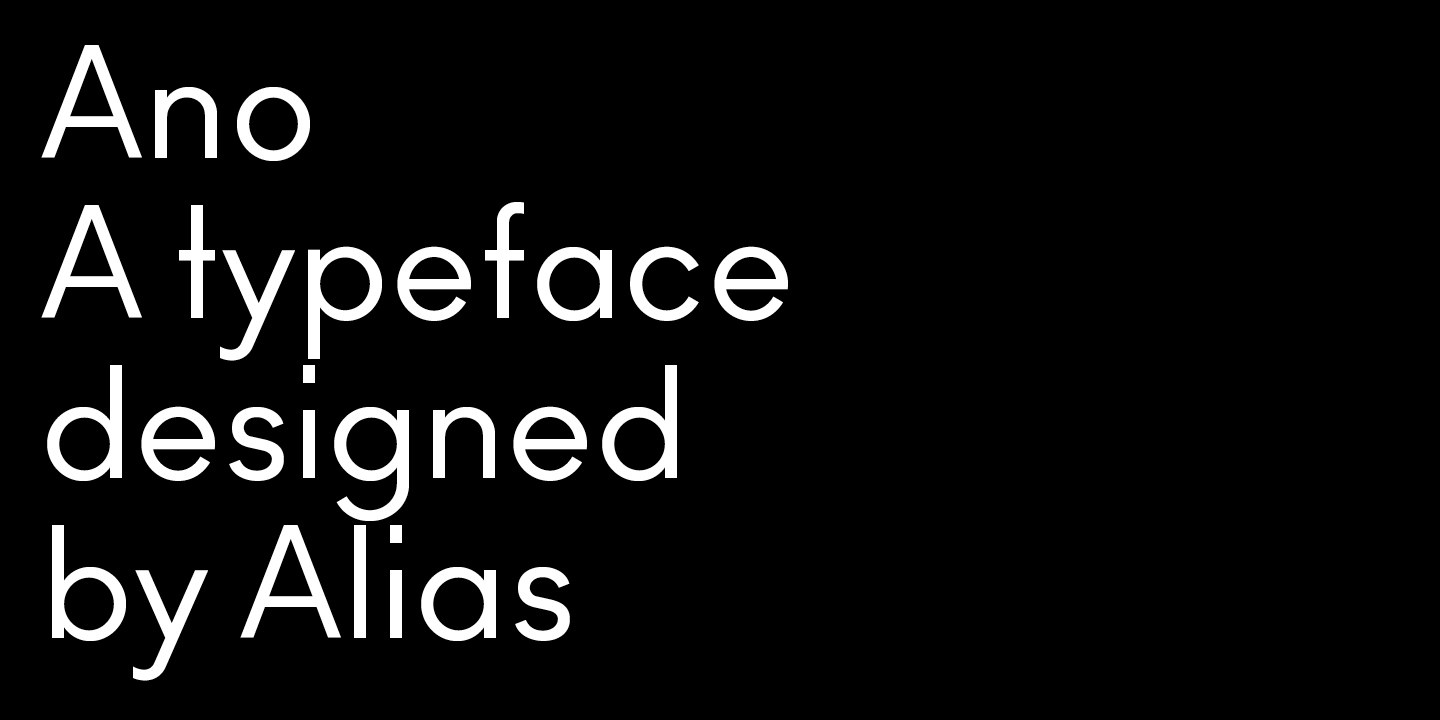
Ano Font is ideal for minimalist branding, contemporary tech companies, clean web interfaces, modern architecture firms, Scandinavian design projects, digital agencies, startup communications, and sophisticated corporate identities that require pure, uncluttered typography with essential clarity and refined simplicity.
What makes Ano Font exciting is its masterful achievement of typographic purity through deliberate restraint and refined reduction. This exceptional typeface embodies the principle that less is more, featuring carefully edited letterforms that eliminate unnecessary elements while preserving essential character, making it perfect for brands seeking sophisticated minimalism and timeless elegance.
The Ano Font family includes ultra-light, light, regular, medium, and bold weights, along with condensed versions for space-efficient applications. Each variation maintains the font's characteristic minimalist philosophy while providing designers with comprehensive tools for creating clean hierarchies and sophisticated brand communications across modern platforms.
Design professionals consistently select Ano Font Free Download for projects demanding pure aesthetic refinement and contemporary sophistication. This versatile typeface seamlessly communicates clarity and intelligence while maintaining visual impact, ensuring brand messages resonate with audiences seeking authentic quality and thoughtful design solutions.
The font's minimalist philosophy and contemporary precision make it particularly suitable for technology and design-conscious brands. Ano Font delivers exceptional clean impact while ensuring optimal readability across all media, offering designers a refined solution for creating memorable brand identities that communicate intelligence, sophistication, and timeless design excellence across modern marketing applications.